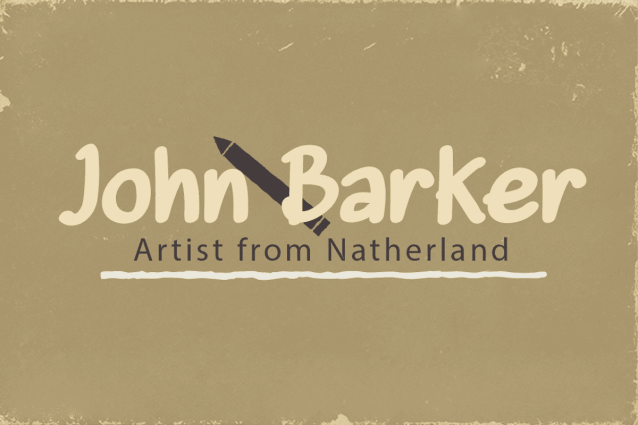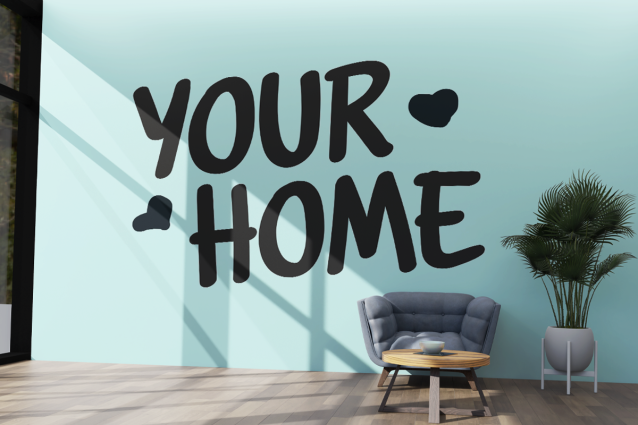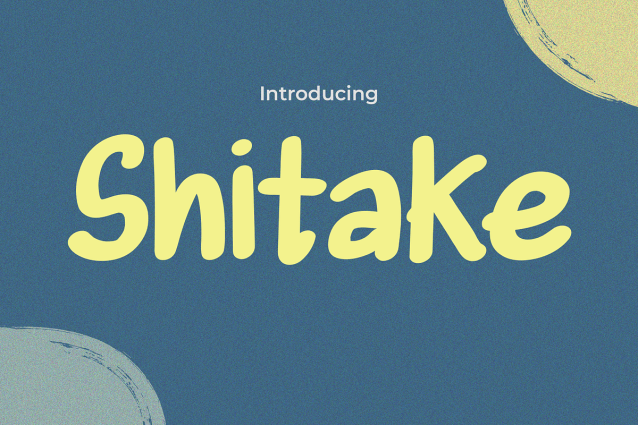
Shitake Font
Shitake Font a font that transports you to the nostalgic realms of vintage book covers. With its timeless charm and classic appeal, “Shitake” adds a touch of retro elegance to your designs, reminiscent of the golden age of literature. Whether you’re crafting book covers, posters, or invitations, this font infuses your projects with an aura of sophistication and literary nostalgia. With each letter echoing the grace of bygone eras, “Shitake” transforms your typography into a visual journey through the vintage allure of bookshelves past. Let “Shitake” be the cornerstone of your design arsenal, breathing life into your creations with the timeless essence of vintage typography.